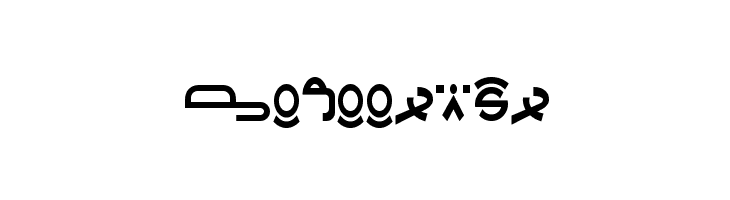
( Gilang Purnama Jaya - Gilang Purnama - geesucks.wordpress.com/ )
Bold, angular Gothic-inspired font with dramatic strokes.
( K-Type - Keith Bates - www.k-type.com/ )
A distressed, vintage-style font with a rubber stamp appearance.
( Markus Schröppel - www.mschroeppel.de/ )
Pictographic, petroglyph-inspired font with hand-drawn symbols.
( Peter de Klerk - valleyofzion.zz.mu )
A modern, geometric sans-serif font with clean lines and balanced spacing.
( Steve Gardner - www.explogos.com )
A clean, structured serif font with medium contrast and excellent readability.
( hechicero - www.ff-omeganebula.com )
A decorative and abstract font with mystical, symbolic characters.
( hechicero - www.ff-omeganebula.com )
A decorative, abstract font with a futuristic, alien-like appearance.
( hechicero - www.ff-omeganebula.com )
A decorative and intricate font with mystical, calligraphic elements.
( hechicero - www.ff-omeganebula.com )
A decorative and intricate font with fantasy-themed glyphs and ornamental design.
( hechicero - www.ff-omeganebula.com )
Ornate, fantasy-themed decorative symbols with intricate details.